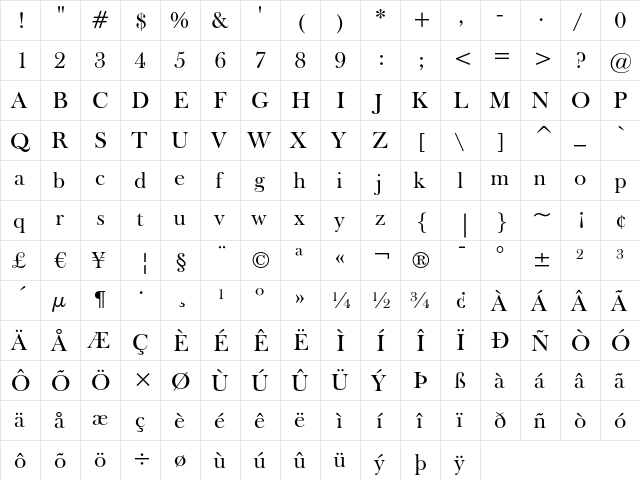
Fry's Baskerville Regular
Design Context for Fry's Baskerville Typeface
Fry's Baskerville offers clean, dependable letterforms without strong stylistic allegiance, making it a practical choice for designers who need flexibility.